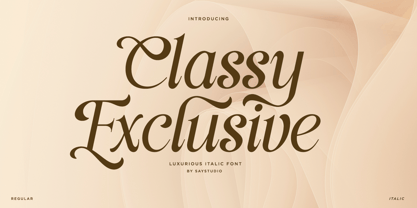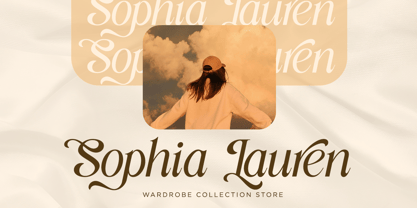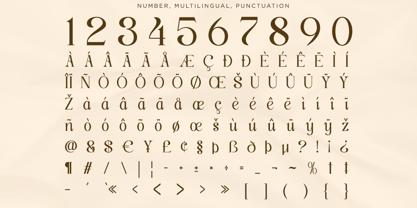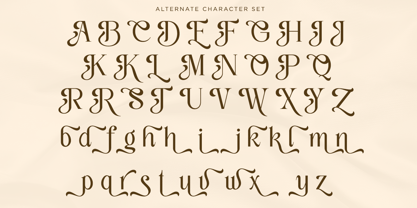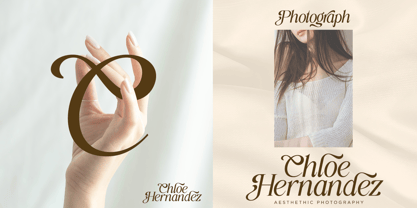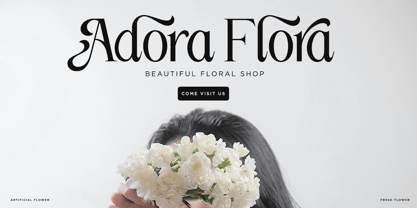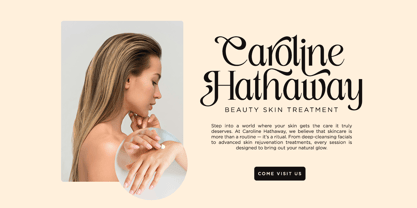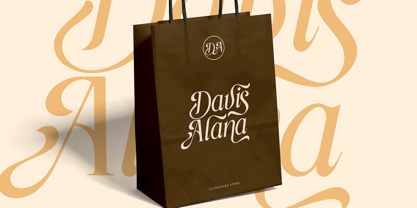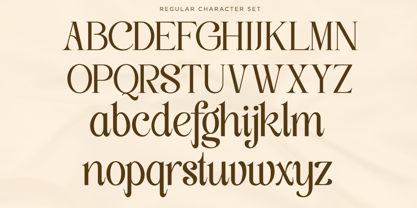
Classy Exclusive
by Say Studio
The Classy Exclusive Font Family was designed by Mussyayin and published by Say Studio. Classy Exclusive contains 2 styles and family package options. More about this family
Classy Exclusive is luxurious serif font with beauty italic style merges classical elegance with modern refinement. This high-impact typeface Inspired by classic calligraphy with a contemporary touch, it’s the perfect choice for premium branding, fashion editorials, and luxury invitations. Classy Exclusive is available in both Regular and Italic versions, each crafted with sweeping calligraphic strokes and refined detailing. The font is perfect for editorial layouts, fashion packaging, premium branding, and any project that needs to balance romance and structure. File Included : - Classy Exclusive Regular - Classy Exclusive Italic - Stylistic Alternates - Multilingual Support Thanks, Have a wonderful day Say Studio
Designers: Mussyayin
Foundry: Say Studio